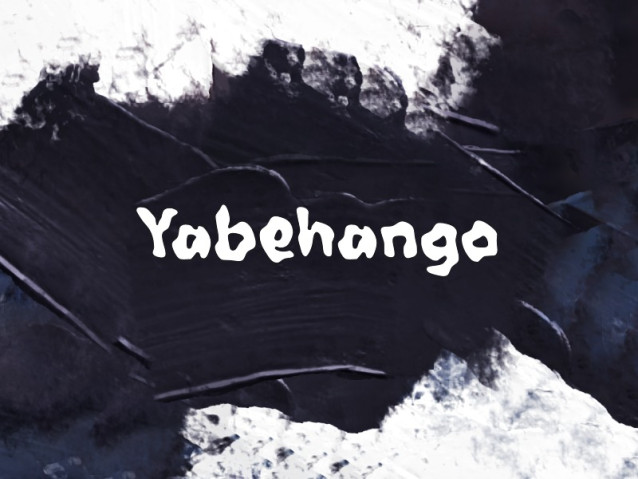
Yabehango Font
Yabehango Font is a simple and modern display font suitable for quotes, logos, headings, titles, and many more. Use it on any of your creative projects, and your designs will become outstanding!